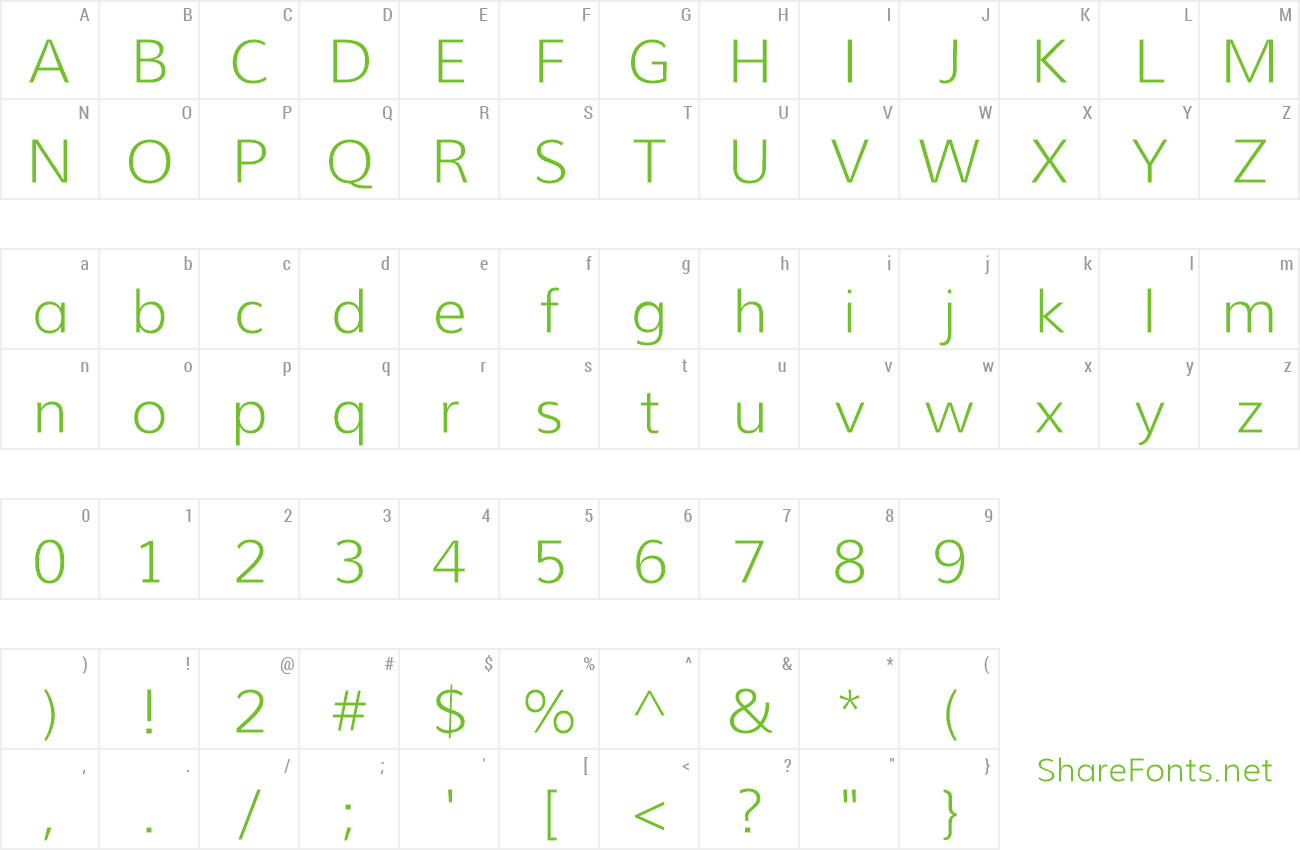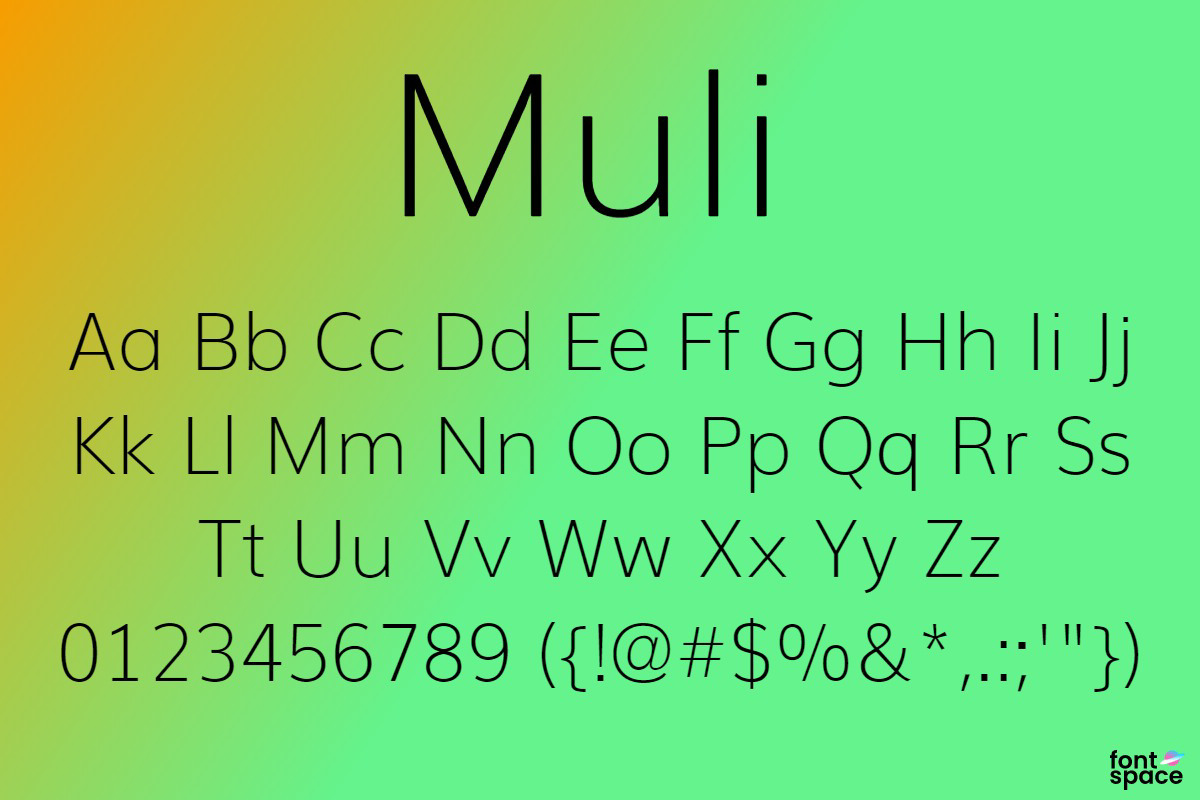
Download Muli Font - A sans serif typeface with 14 styles, available from adobe fonts for. Web mulish is a minimalist sans serif typeface, designed for both display and text typography. Web explore muli designed by vernon adams at adobe fonts. It was initially drawn in 2011. Web download 10,000 fonts for just $19.95. Licensed for personal and commercial use.